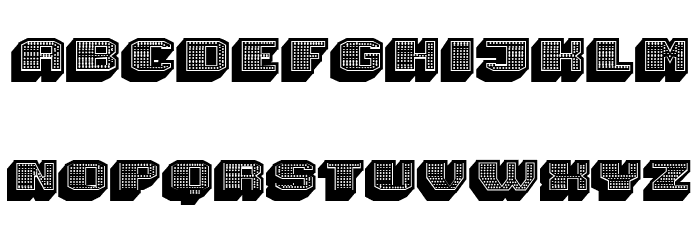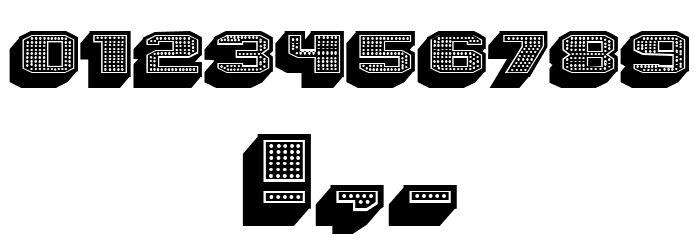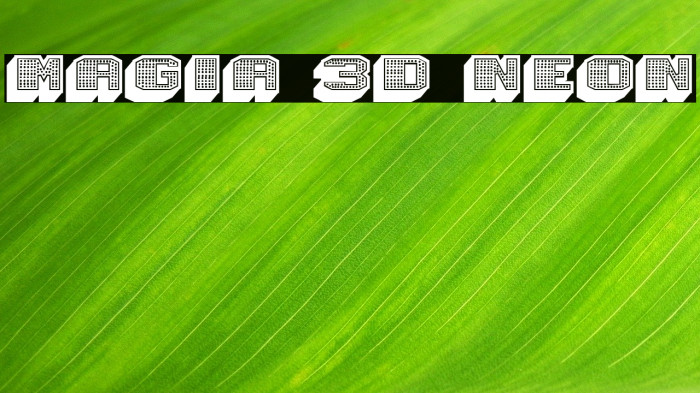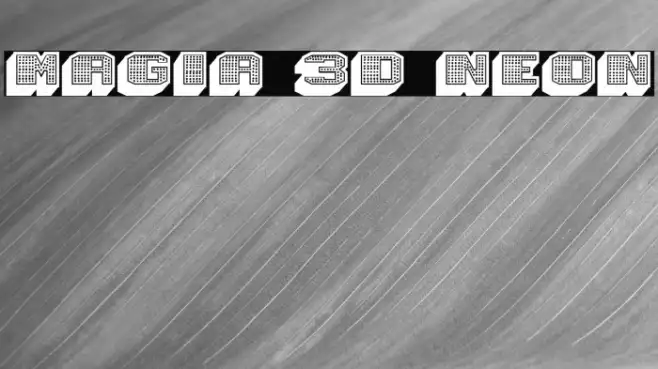
Magia 3D Neon Font
This font features a bold, three-dimensional design with a neon-like appearance. Each character is outlined with a thick black border, creating a striking shadow effect that enhances the 3D illusion. The interior of the characters is filled with a dotted pattern, reminiscent of marquee lights, adding a playful and dynamic touch. The uppercase letters, numbers, and special characters maintain a consistent style, making it suitable for eye-catching displays. The font's unique design is perfect for projects that require a retro or vintage aesthetic with a modern twist.
A bold, 3D neon-style font with a dotted interior and strong shadow effect.
- Proposed Projects: Ideal for retro-themed posters, event flyers, signage, and branding that requires a standout, vintage-modern look.
- Overall Style: Vintage, Modern
- Use Case: Headlines, Logos, Signage